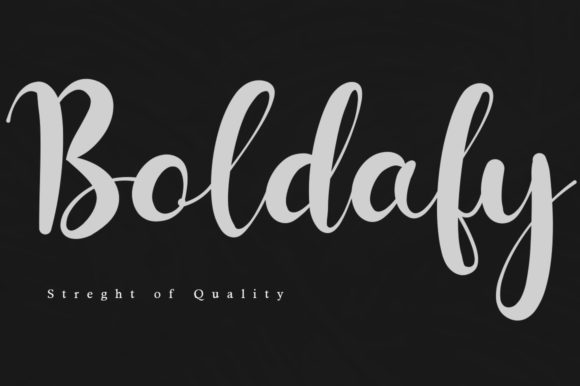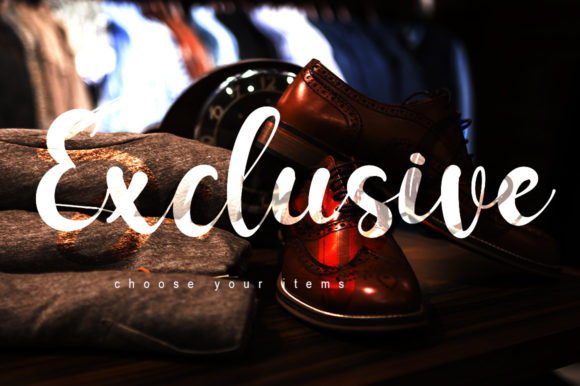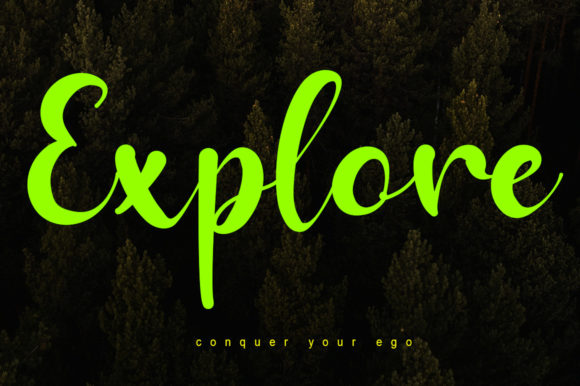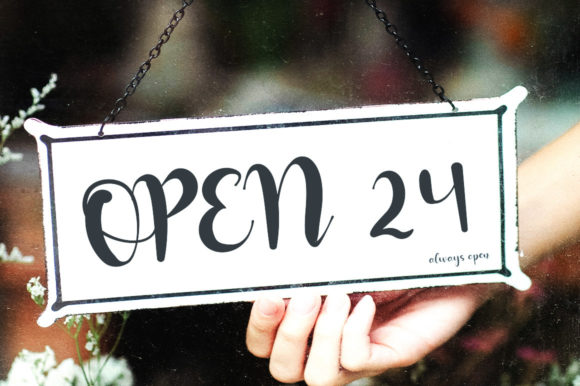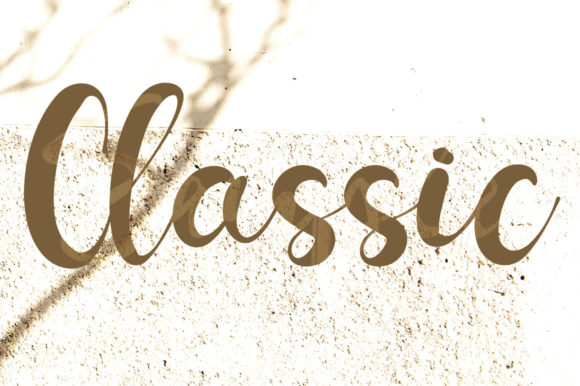
Introducing Boldafy Font: Elevate Your Designs with Elegance and Sophistication
In the world of typography, a font can make or break a design. For designers and crafters seeking to add a touch of elegance and sophistication to their projects, Boldafy Font is an exceptional choice. This well-adjusted and fine script font is designed to make your creations stand out, offering a unique blend of style and versatility.
What Makes Boldafy Font Special?
Boldafy Font is not just another script font; it’s a carefully crafted typeface that offers a range of features making it ideal for various design projects. Here are some key characteristics that set Boldafy apart:
• PUA Encoding: Boldafy is PUA (Private Use Area) encoded, which means you can access all glyphs and swashes with ease. This feature provides unparalleled flexibility, allowing you to experiment with different styles and create unique designs.
• Well-Adjusted and Fine Script: The font is meticulously designed to ensure that every letter and swash is perfectly balanced, creating a harmonious and aesthetically pleasing script.
• Elegance and Sophistication: Boldafy exudes elegance and sophistication, making it perfect for designs that require a high level of refinement, such as branding, packaging, and editorial projects.
Applications of Boldafy Font
Boldafy Font’s versatility makes it suitable for a wide range of design applications. Here are some of the ways you can use Boldafy to elevate your designs:
• Branding and Logos: Create stunning logos and brand identities with Boldafy’s elegant script. The font’s unique character and swashes can help your brand stand out.
• Packaging Design: Add a touch of sophistication to your packaging designs with Boldafy. The font’s fine lines and swashes can create beautiful and eye-catching labels.
• Editorial Design: Use Boldafy to create engaging and stylish editorial content, such as magazine headers, article titles, and quotes.
• Digital Media: Boldafy can also be used in digital media, including social media graphics, website headers, and video titles.
Tips for Using Boldafy Font
To get the most out of Boldafy Font, here are some tips to keep in mind:
• Experiment with Swashes: Take advantage of Boldafy’s PUA encoding and experiment with different swashes to create unique and personalized designs.
• Mix and Match: Combine Boldafy with other fonts to create interesting and dynamic designs. The font’s elegance and sophistication make it a great pairing with sans-serif fonts.
• Play with Colors: Boldafy looks stunning in a range of colors. Experiment with different color palettes to find the perfect match for your design.
Boldafy Font is an exceptional script font that offers a unique blend of elegance, sophistication, and versatility. With its PUA encoding, well-adjusted and fine script, and range of applications, Boldafy is an excellent choice for designers and crafters seeking to elevate their designs. Whether you’re working on branding, packaging, editorial, or digital projects, Boldafy is sure to make your creations stand out.